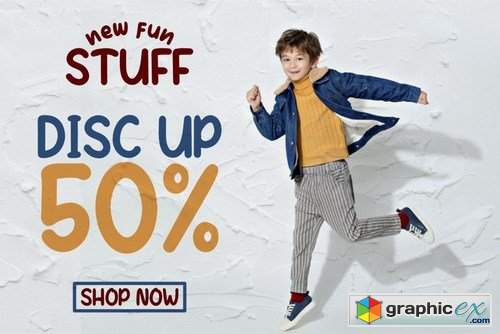
Letter Kids GJ - Display Fun Font
It's smooth, it's funny, it's fun, and it's very nice: it's Letter Kids | a funny Typeface Mixed fonts with many possible combinations.
Letter Kids is the perfect font for all your fun designs. The main font file is equipped with ordinary characters (A-Z, a-z, 0-9, ligature, and lots of punctuation), as well as more than 350 glyphs to support most Latin-based languages. Plus, it comes with super fun ligature!